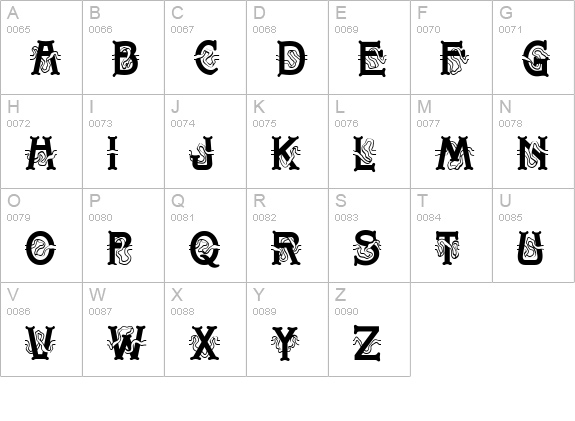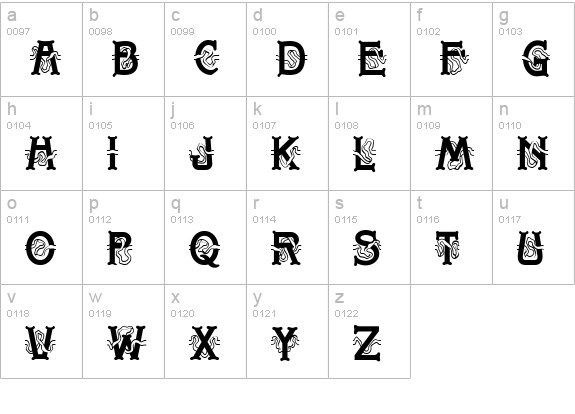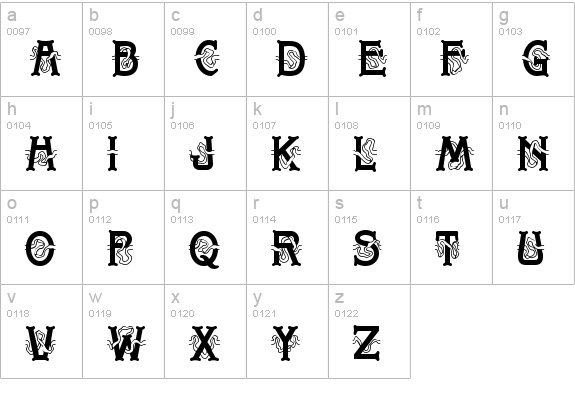
Streamers NF Font Details
Streamers NF is a captivating display font that exudes a sense of creativity and fun. With its unique and playful design, this font is perfect for adding a touch of whimsy to any project. The flowing lines and energetic curves of Streamers NF give it a dynamic and lively appearance that is sure to catch the eye. What sets Streamers NF apart is that it is not only visually striking but also completely free to download. This means that you can unleash your creativity without any cost barriers. Whether you are working on a personal project or a professional design, Streamers NF is a versatile font that will bring your ideas to life. You can easily download Streamers NF for free at FontsMarket.com. With just a few clicks, you can add this delightful font to your collection and start using it in your designs right away. Don't miss out on the opportunity to enhance your projects with the playful charm of Streamers NF. Download it now and let your creativity flow!